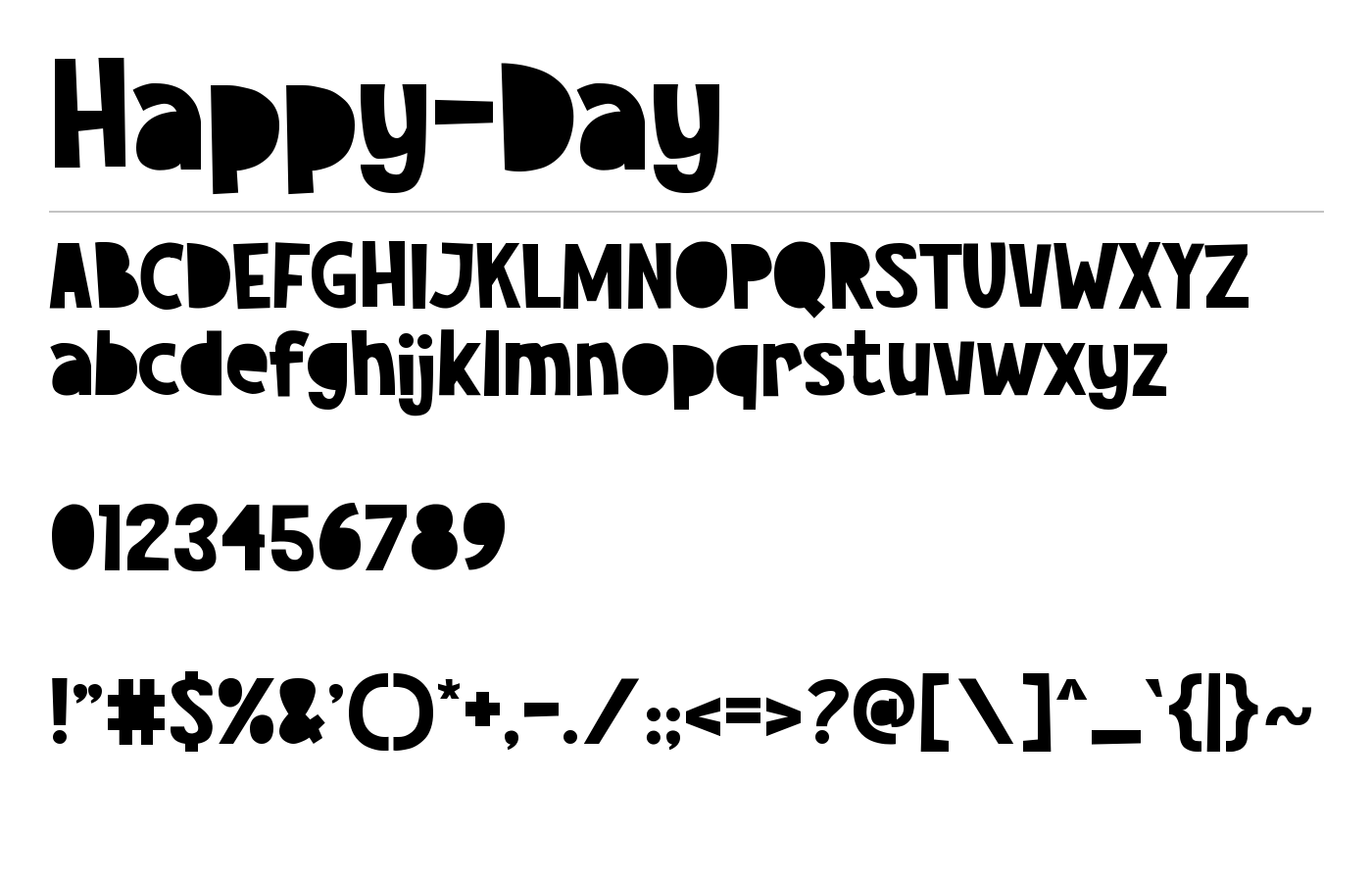
Happy Day is a bold, playful sans serif font with a chunky, slightly irregular shape that gives it a friendly and informal vibe. Its high x-height and thick strokes make it very readable, while unique letterforms add personality ideal for cheerful branding, children's products, or casual headlines. This font works best where a fun, approachable look is needed to capture attention and create a lively mood.
Happy Day Font